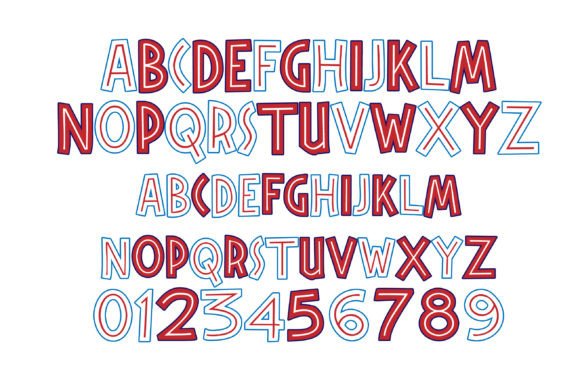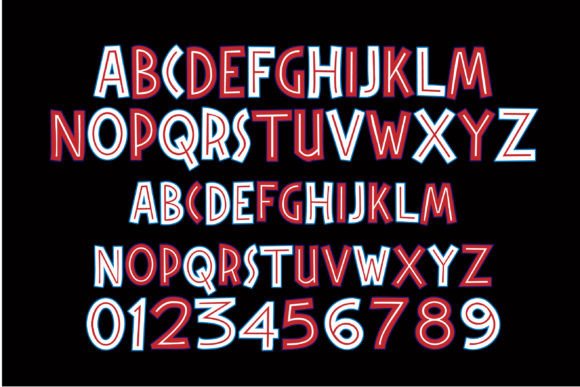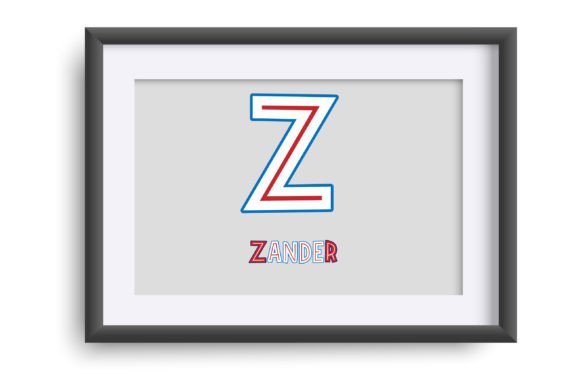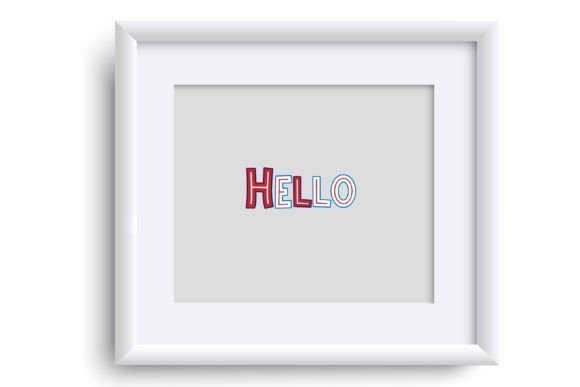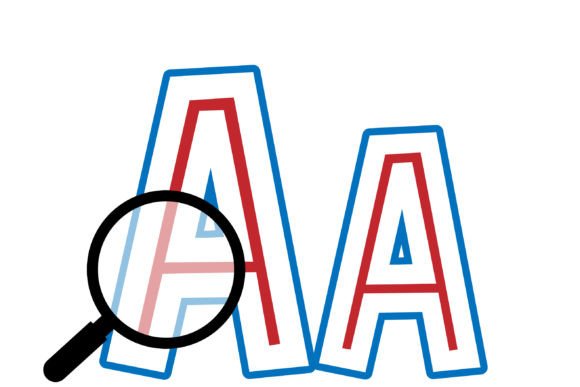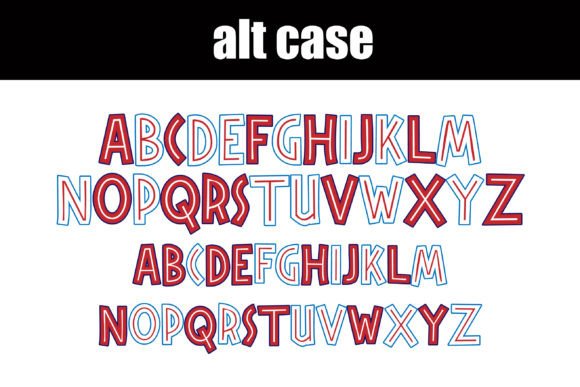
Introducing the Americana Age Font: A Prehistoric-Inspired Typeface with a Patriotic Twist
Are you tired of using the same old fonts for your design projects? Look no further than the Americana Age Font, a unique and eye-catching typeface that combines prehistoric-style lettering with a patriotic color palette. This full-color font is perfect for designers and crafters looking to add a touch of personality to their work.
What Makes the Americana Age Font Special?
The Americana Age Font is a one-of-a-kind typeface that features a prehistoric-inspired design with a patriotic color scheme. The font comes in two versions: a primary case with a bold and colorful design, and an alt case with additional colors that can be accessed through your system or Silhouette’s glyph map. This font is perfect for creating eye-catching titles, displays, posters, and more.
The Benefits of Full-Color SVG Fonts
Full-color SVG fonts, like the Americana Age Font, offer a range of benefits for designers and crafters. These fonts allow for:
• Increased creativity and flexibility: With a wide range of colors and designs to choose from, you can create unique and eye-catching designs that stand out from the crowd.
Tips for Using the Americana Age Font
Here are a few tips for getting the most out of the Americana Age Font:
• Use it for titles and displays: The bold and colorful design of the Americana Age Font makes it perfect for creating eye-catching titles and displays.
• Experiment with different colors: The alt case version of the font offers additional colors that can be accessed through your system or Silhouette’s glyph map. Experiment with different colors to find the perfect combination for your design.
• Pair it with other fonts: The Americana Age Font can be paired with other fonts to create a unique and interesting design. Try pairing it with a simple sans-serif font for a bold and eye-catching look.
The Americana Age Font is a unique and eye-catching typeface that combines prehistoric-style lettering with a patriotic color palette. With its wide compatibility, easy installation, and range of benefits, this font is perfect for designers and crafters looking to add a touch of personality to their work. Whether you’re creating titles, displays, posters, or more, the Americana Age Font is sure to make your design stand out from the crowd.